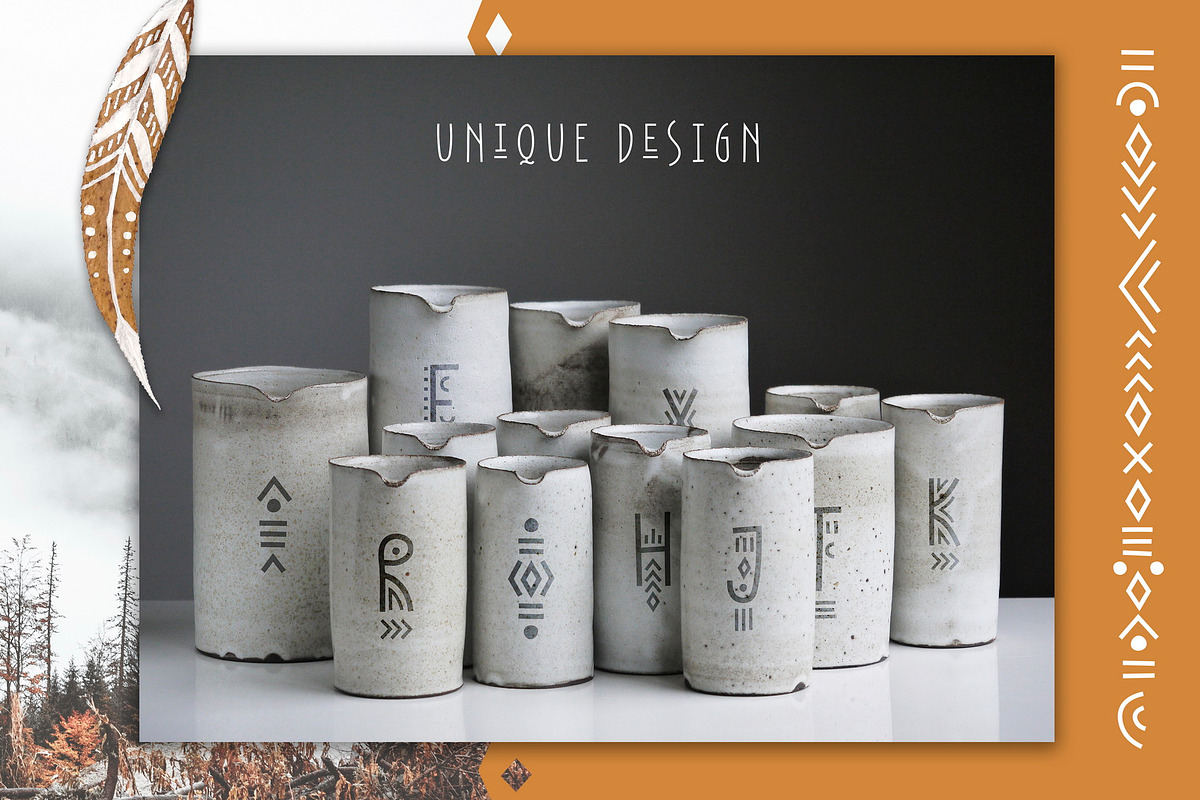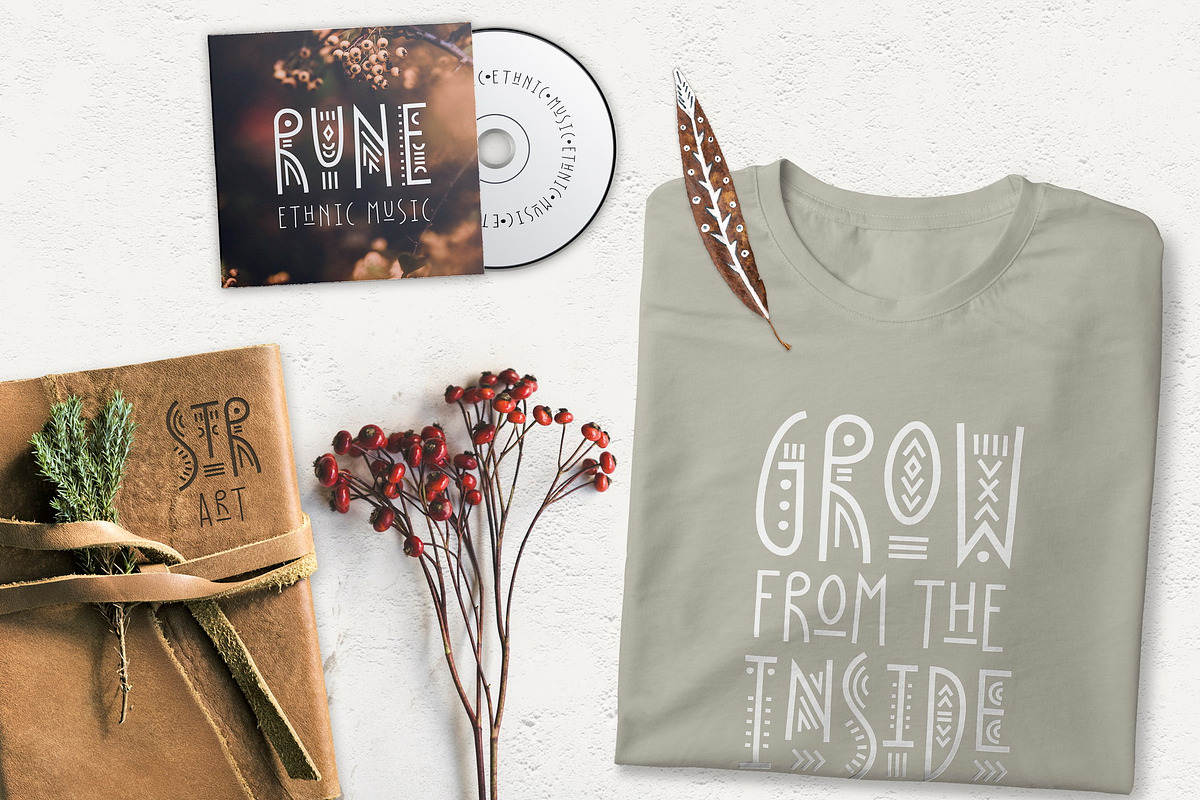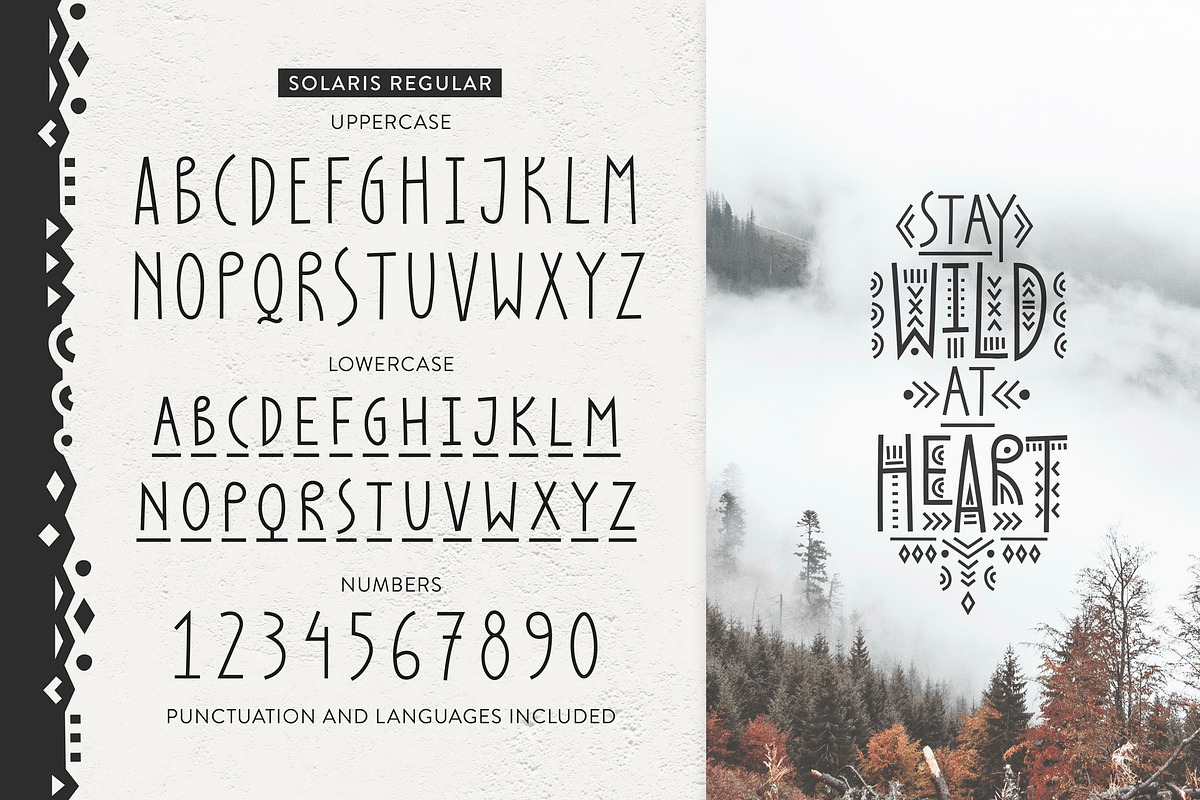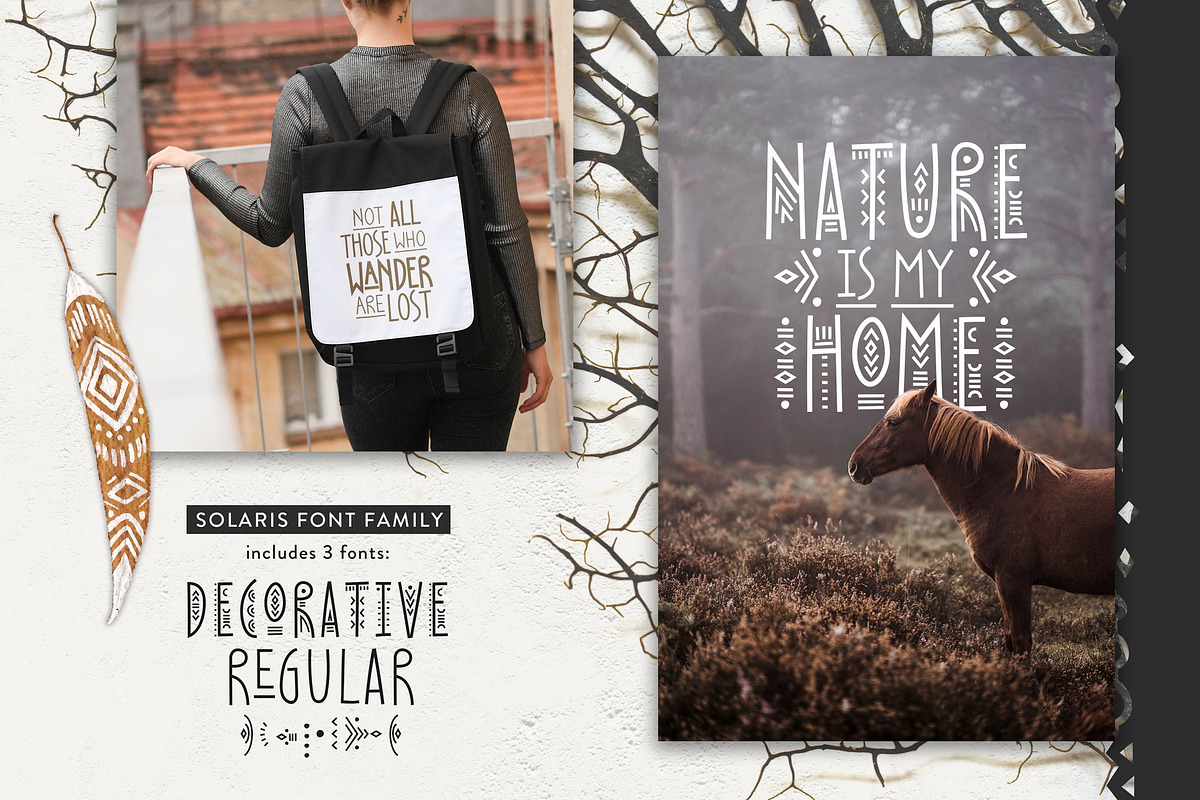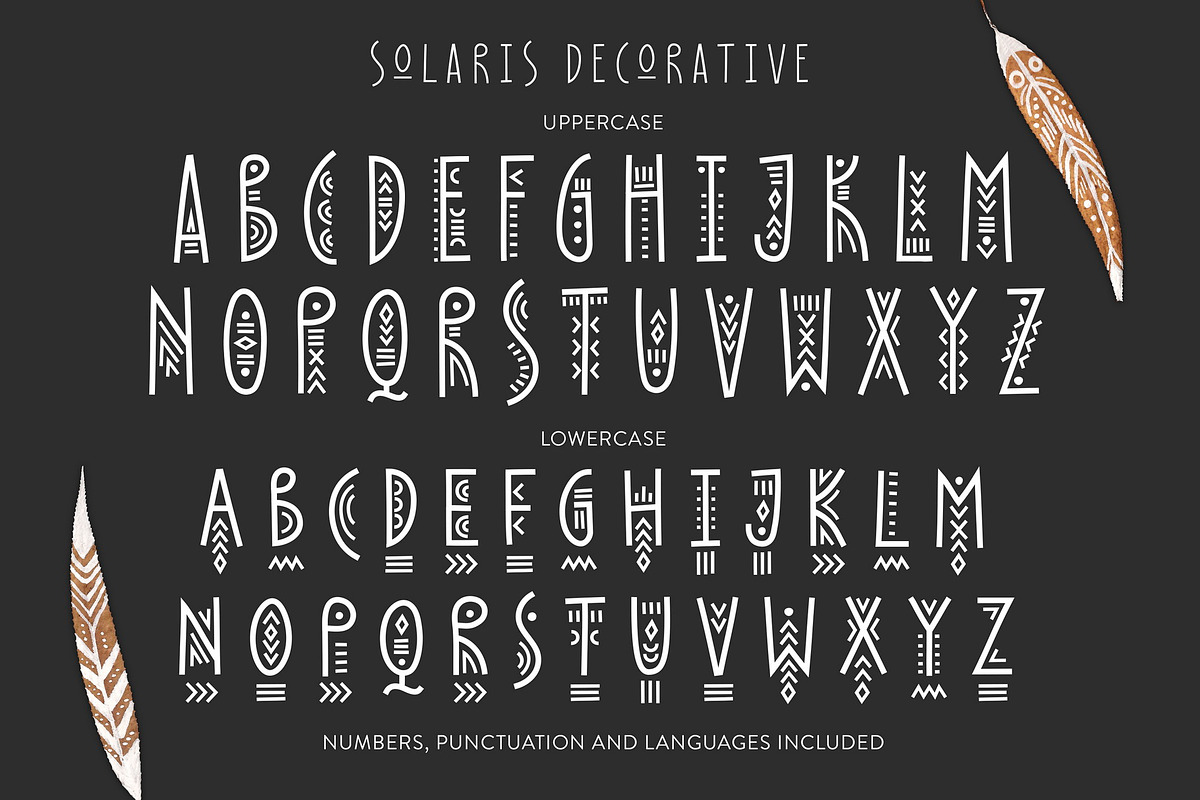
Solaris - Tribal Font Family
I would like to introduce my new product - Solaris Tribal font family. Solaris is a display font decorated with geometric patterns. The typeface includes Decorative, Regular and Symbol versions. Combine fonts with each other to get a unique design! The font is easy to use in various design programs or without any program.
Solaris font is suitable for lettering posters and cards, tourist brochures, photo overlays, music album and book covers. The font works great both for printing clothes and craft products branding and packaging (herbal tea, handmade soap, organic food). Also use individual letters to create logos and monograms.